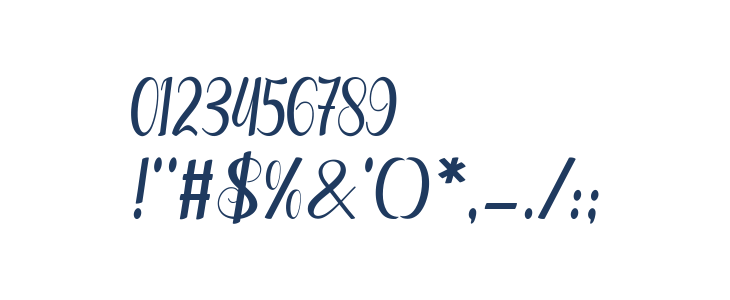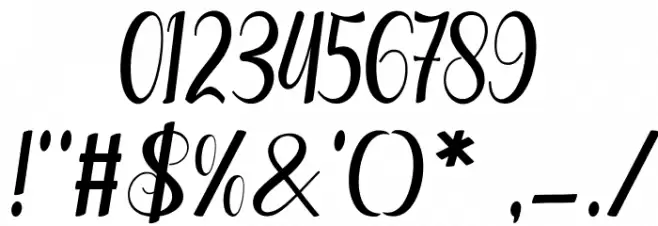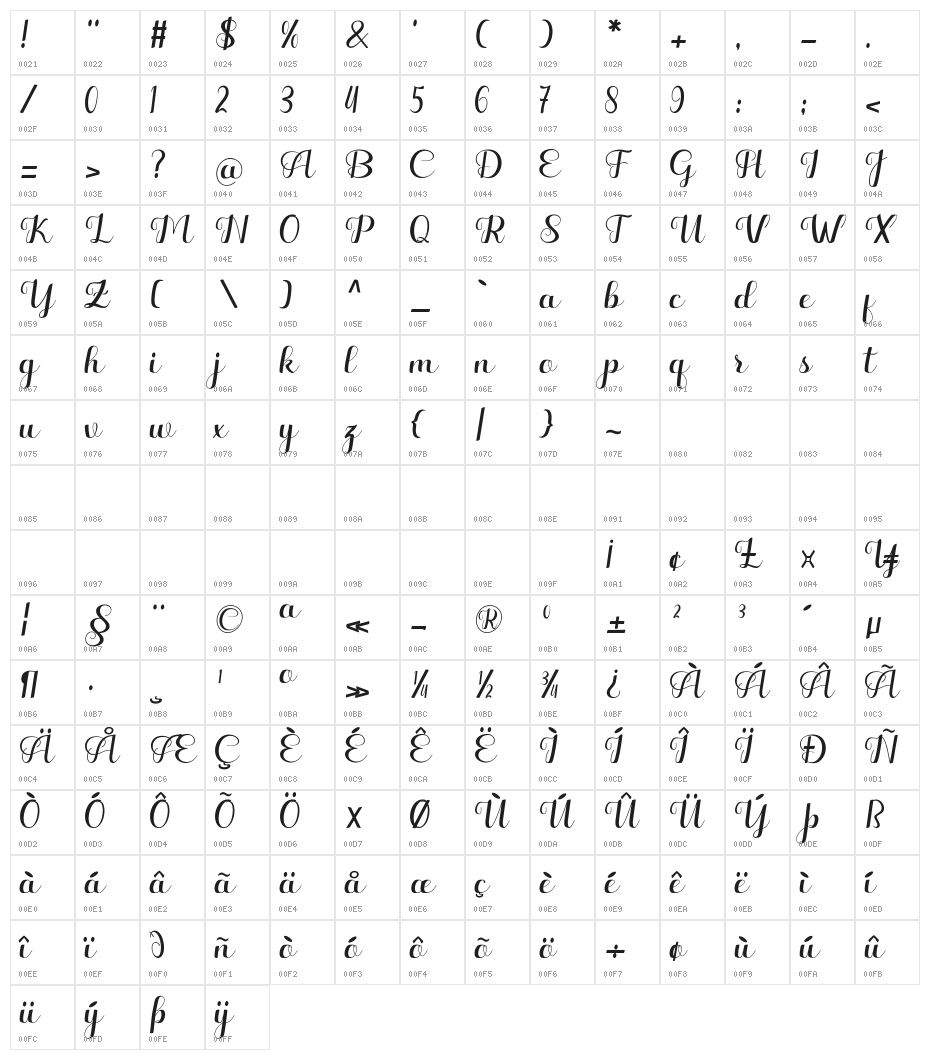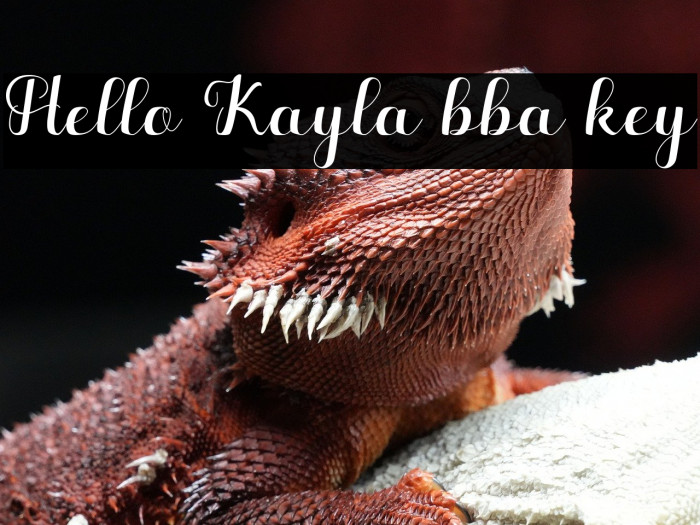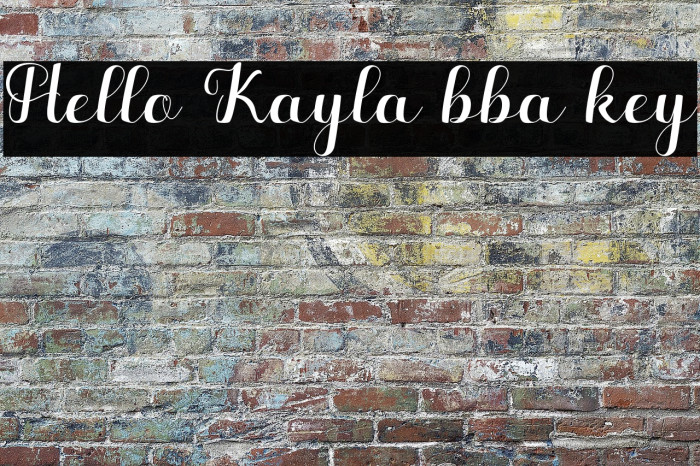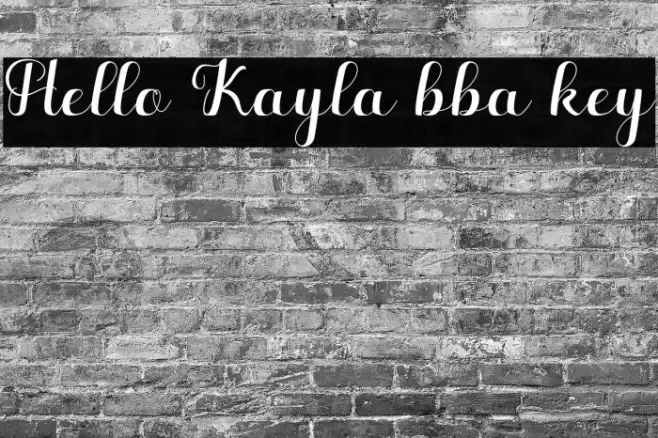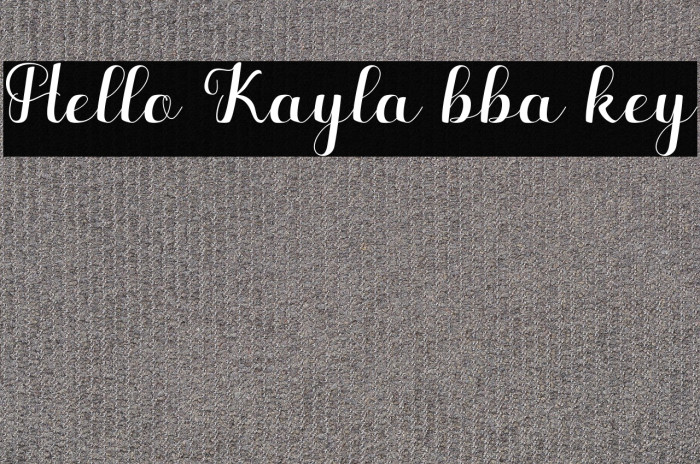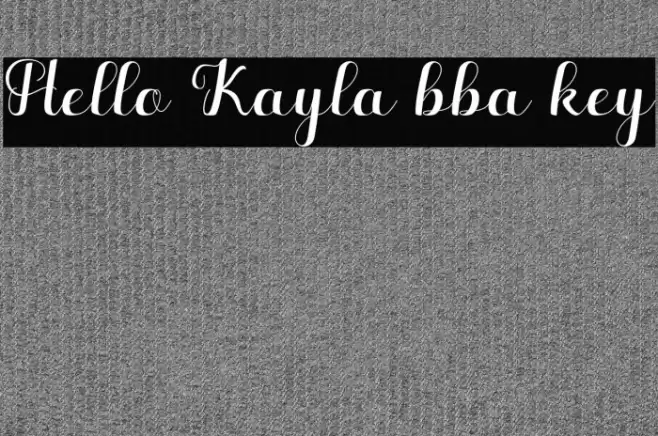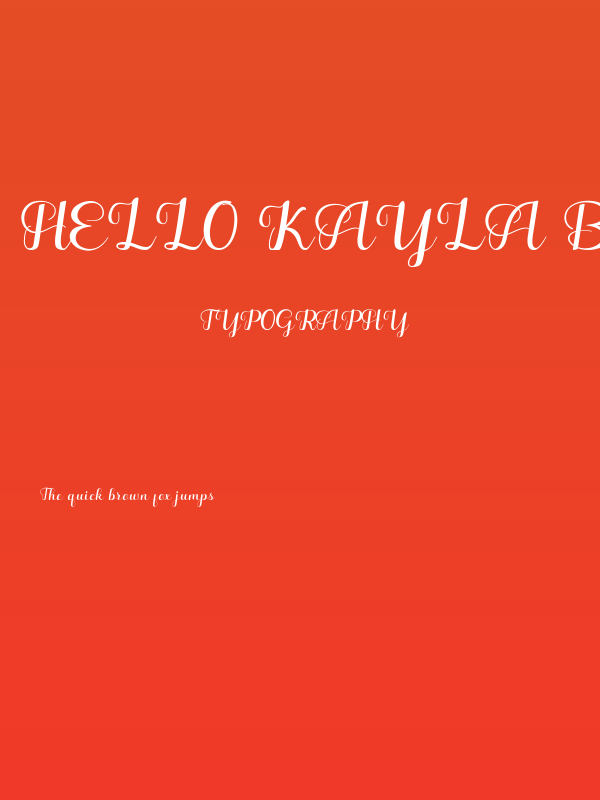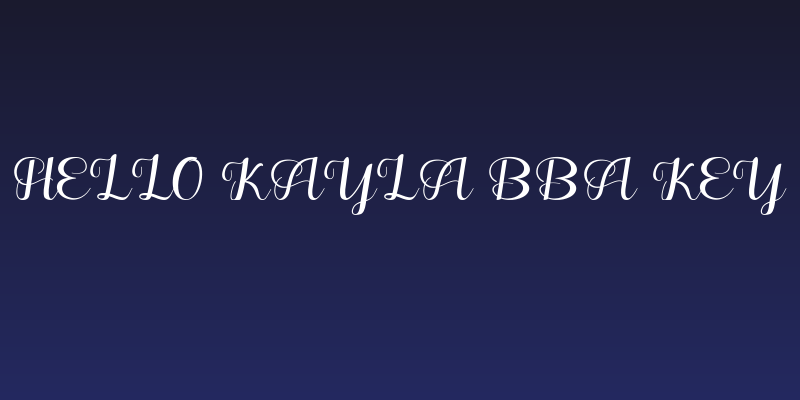
Hello Kayla bba key Font
Hello Kayla bba key Description
This elegant script font features a flowing, cursive style with a modern twist. The uppercase letters are characterized by their graceful loops and swashes, giving them a sophisticated appearance. The lowercase letters maintain a consistent flow, with some characters featuring distinctive flourishes that add to the font's charm. The numerals are stylish and easy to read, complementing the overall aesthetic. Special characters are thoughtfully designed, maintaining the font's cohesive look. This font is perfect for projects that require a touch of elegance and style.